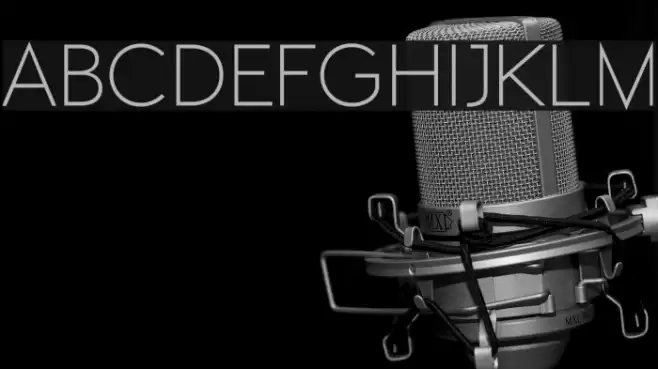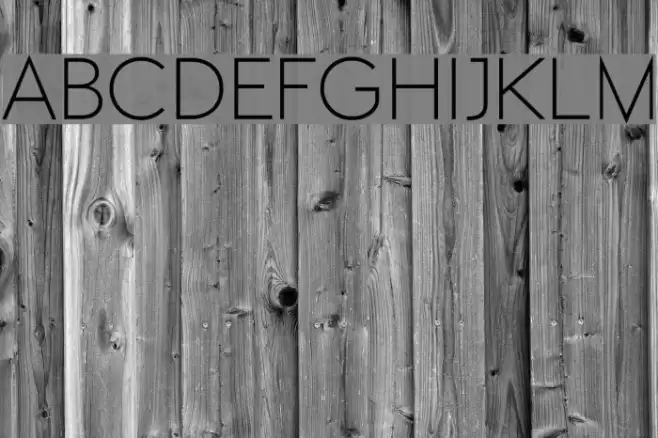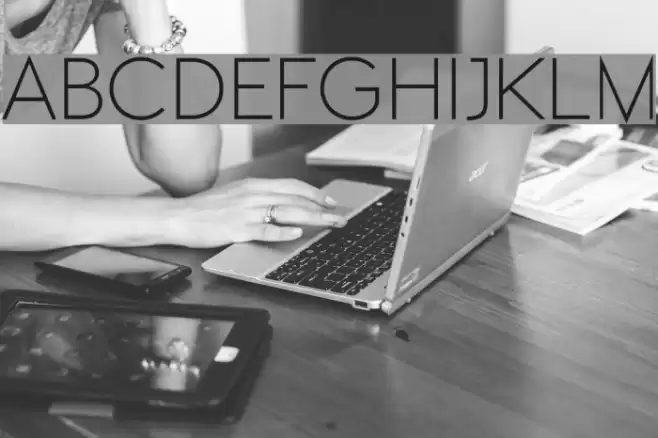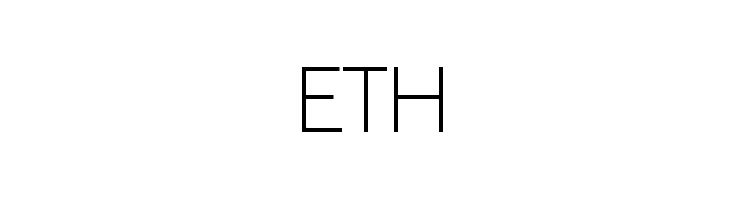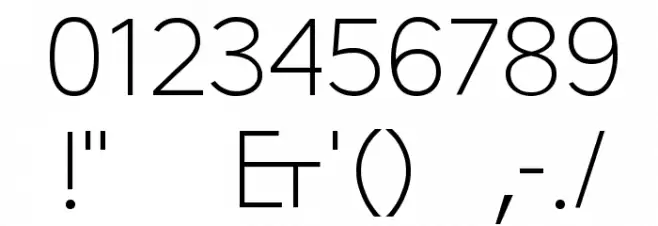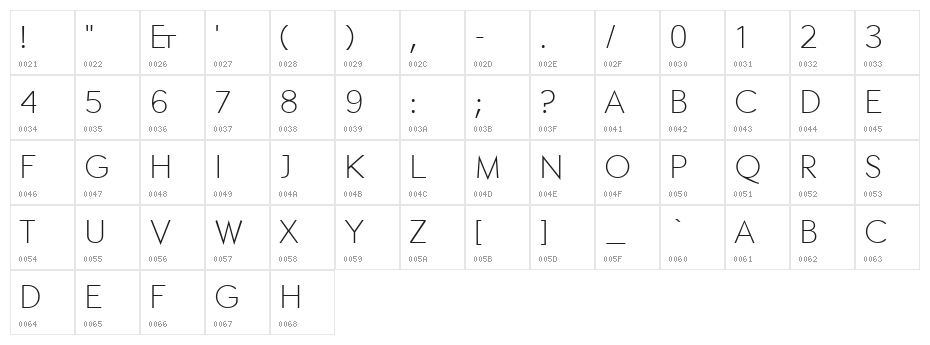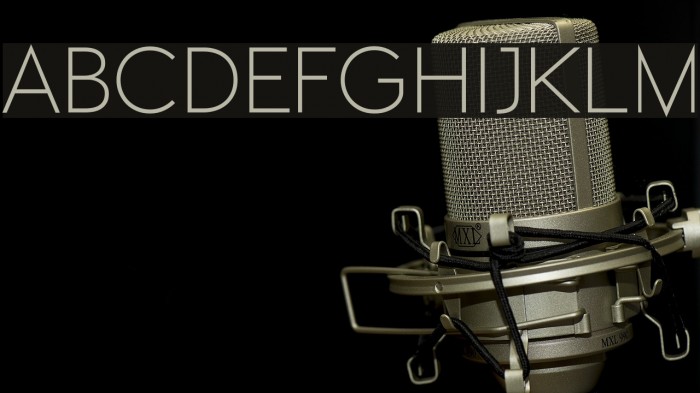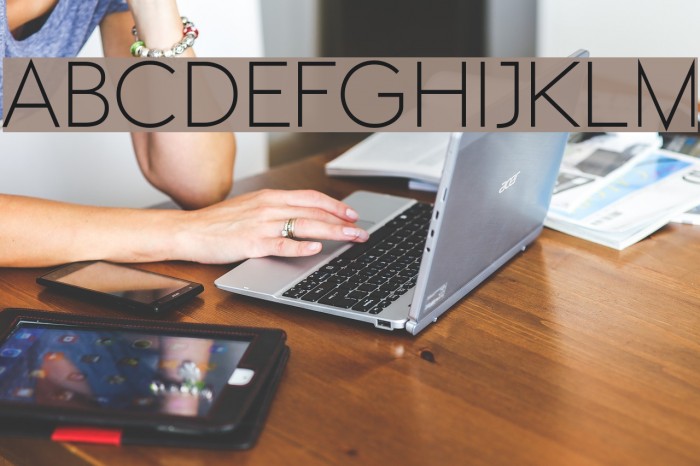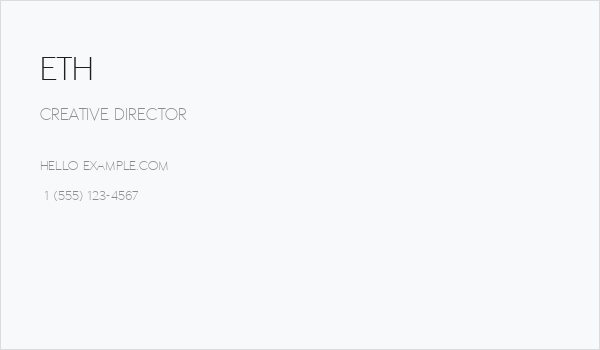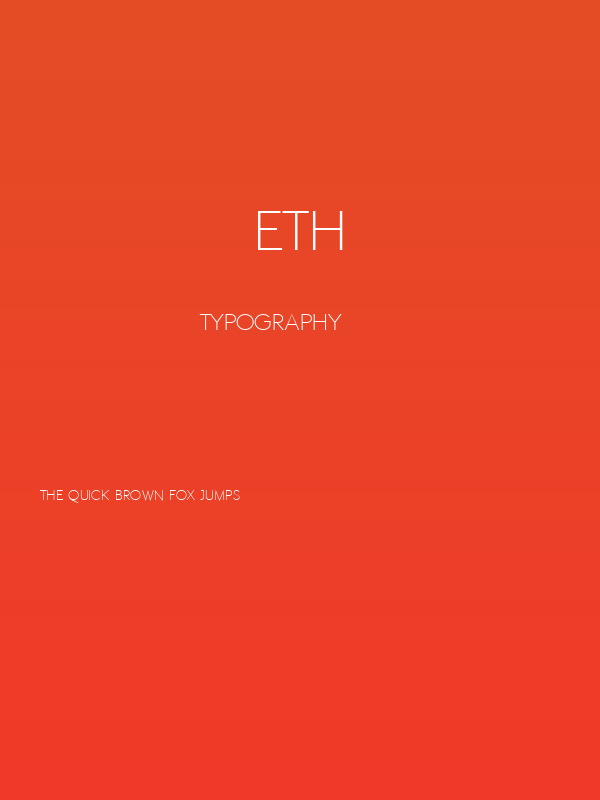
ETH Font
ETH Description
This font features a clean and modern sans-serif design, characterized by its geometric shapes and uniform line thickness. The characters are well-balanced, with a consistent height and width that contribute to its readability. The uppercase letters are bold and assertive, while the lowercase letters maintain a harmonious flow. The numerals are clear and distinct, making them suitable for various applications. The special characters are designed with simplicity in mind, ensuring they complement the overall aesthetic without distraction. This font's minimalist style makes it versatile for both digital and print media.
A modern, geometric sans-serif font with clean lines and uniform thickness from Uncategorized fonts.
- Proposed Projects: Ideal for branding, web design, advertising, and editorial layouts.